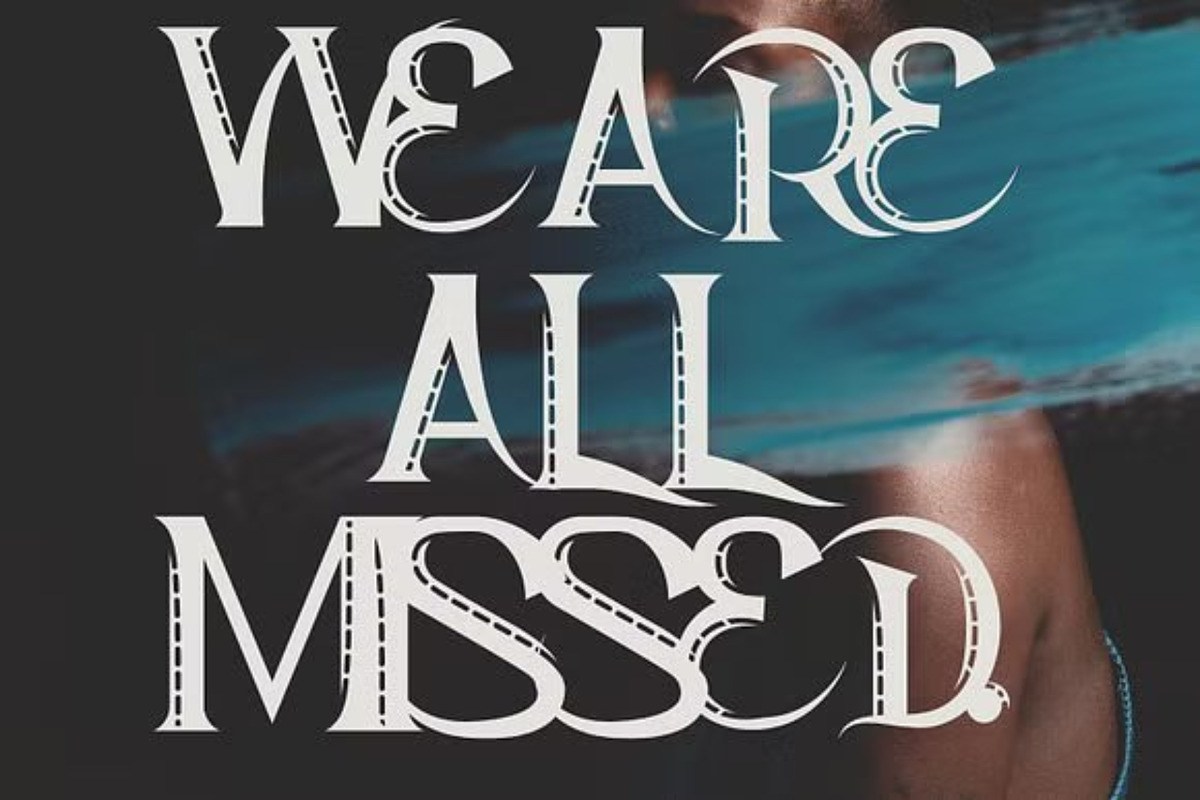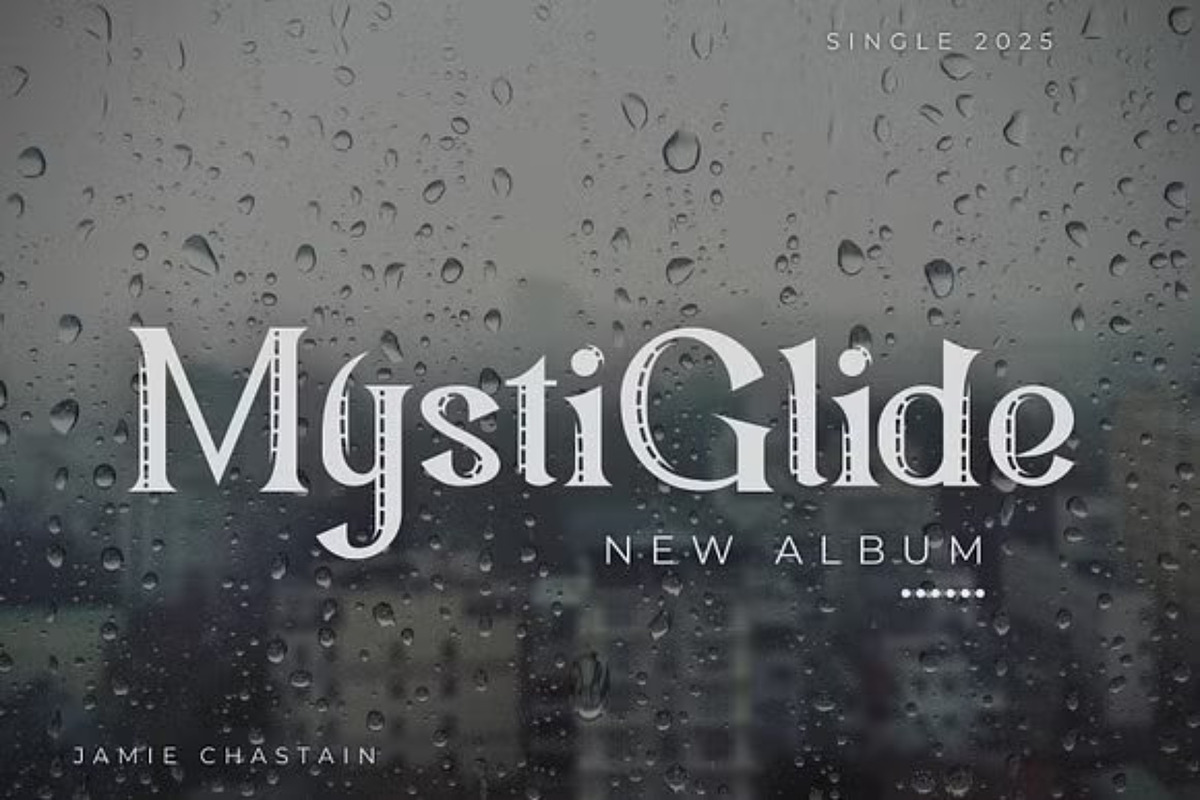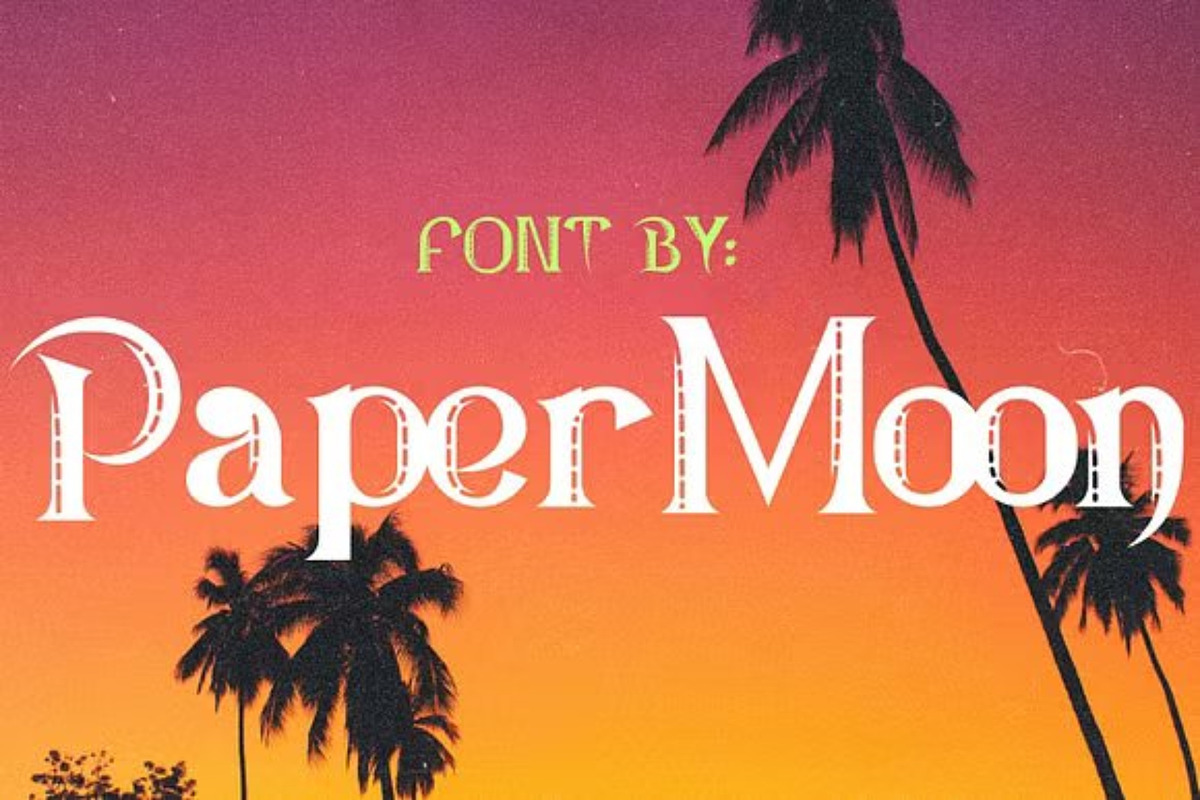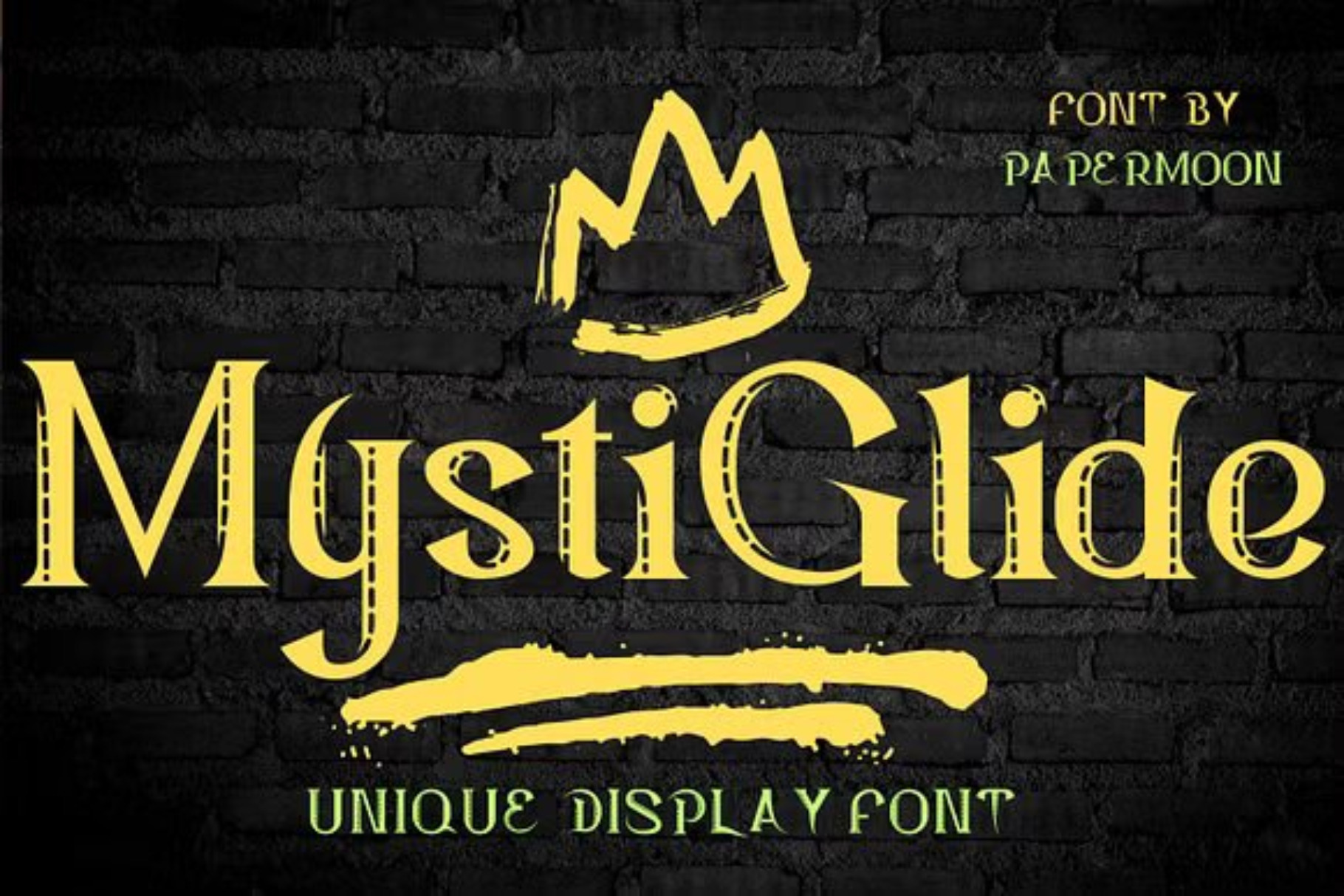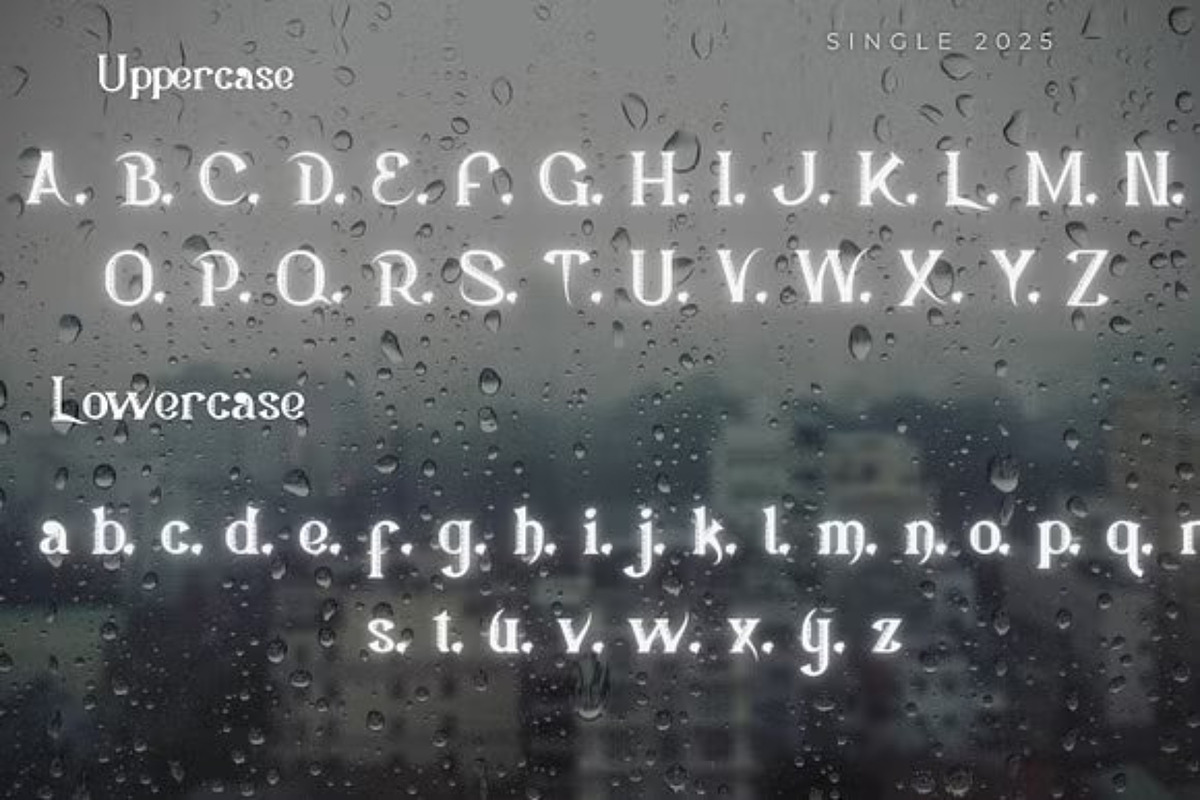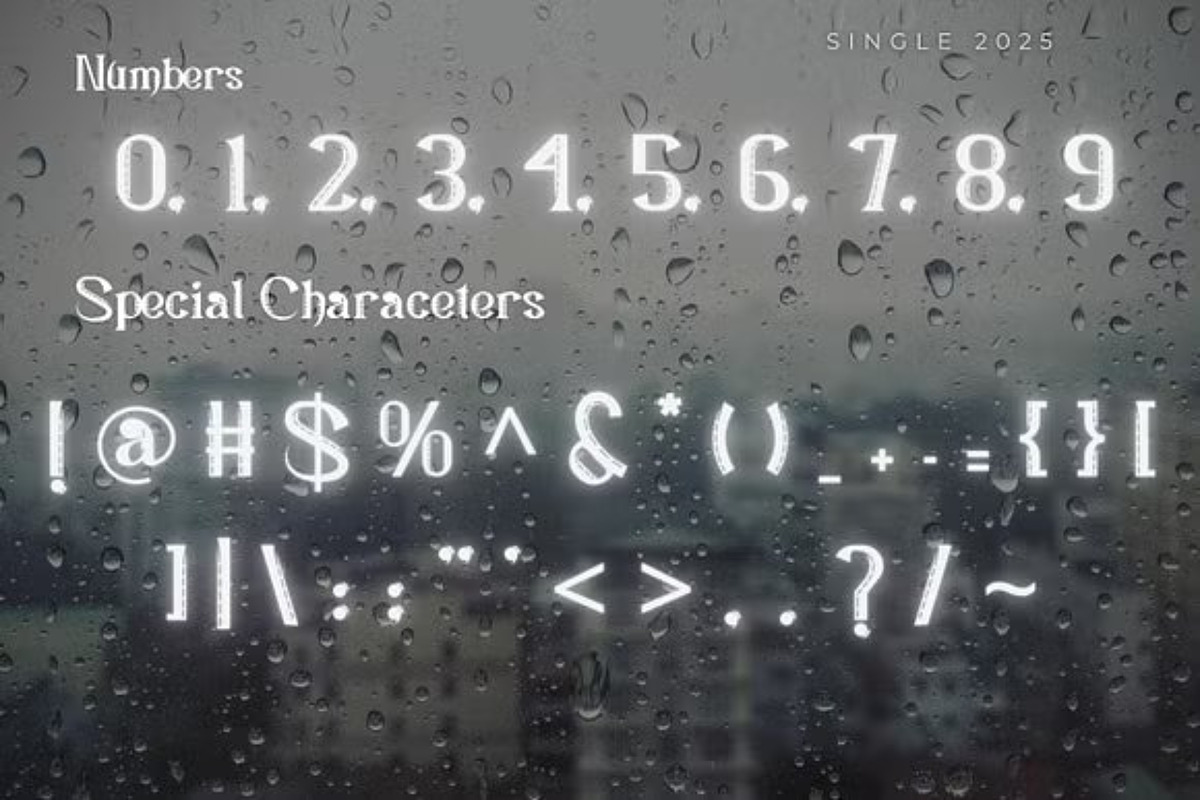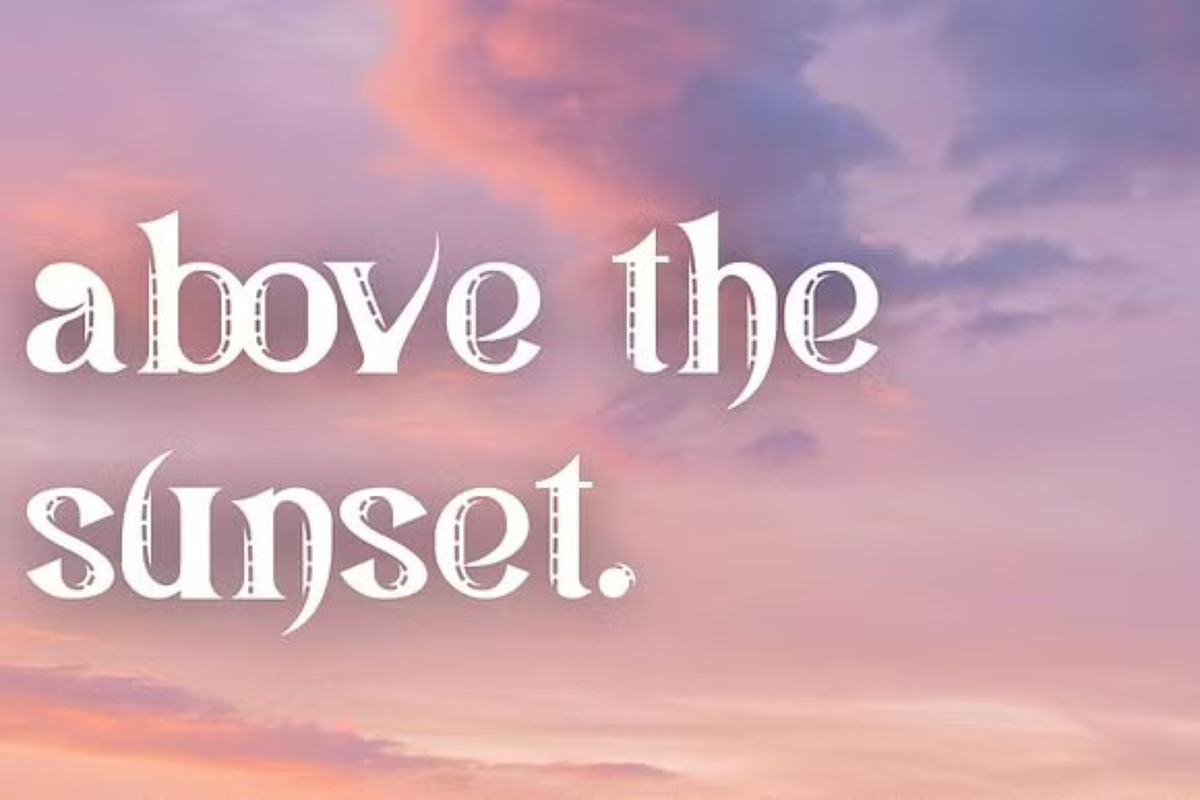
MysticGlide: Unique Display Font
Introducing MystiGlide: A Unique Display Font with a Vintage Flair
MystiGlide is a distinctive display font designed with a bold, vintage look. Featuring strong, pointed edges and a road strip effect, this typeface stands out, making it perfect for a wide range of industries including antique shops, architectural firms, crafts, culinary ventures, gaming, homeware brands, cinema, museums, publishing houses, tailoring, technology, and many more.
A full set of uppercase and lowercase characters Numbers and a comprehensive range of punctuation and symbols Impeccably spaced and kerned characters for professional typography MystiGlide is a versatile typeface, ideal for various projects such as blog headers, business cards, headlines, interior design, labels, magazines, printed materials, product packaging, and signage. Whether for digital or print applications, this font delivers both style and clarity (extended licensing available for broader use).
Unlock a world of creative possibilities with MystiGlide—a vintage display font that brings style, versatility, and ease to all your design projects.